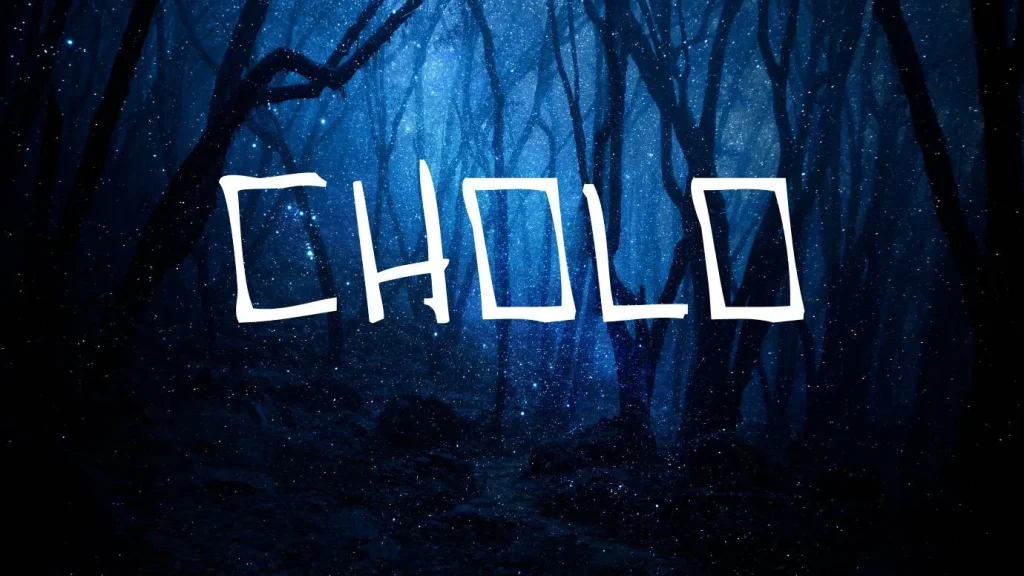
Cholo Font is a fancy style that has very unique glyphs. There are over a hundred stylized alternatives, allowing for unlimited customization and titling possibilities. A classic and stable design, it is well suited to editorial, books, ads, and branding. OTF and TTF versions are available for different design programs, such as Adobe Photoshop. Every designer appreciates its value.
In addition to web development, game development, logo design, and infographics, you can use them for many other purposes. Logos and headlines are best suited for this font. There are several ways in which you can utilize its advanced features for official purposes.
Many designers use this typeface since it is supported by a variety of languages. Utilizing this typeface will enhance the appearance of your designs. Use this typeface to create attractive headlines and titles. Use this attractive typeface for menus, assignments, quotes, and presentations.
This typeface is best compared to the High Destiny typeface. For thumbnail designs, theme designs, and other design projects, this stunning typeface is often selected by designers.
What is Cholo font style?
Cholo is the unique text style for all your fun designs, textual style was planned by Richie Mx. It is the fancy style.
Why is Cholo so popular?
Use this typeface to create attractive headlines and titles, this attractive typeface can be used to create menus, assignments, quotes, and presentations.
Is Cholo good for a resume?
Many professionals say that is now an outdated font, but still, it is an excellent choice in terms of readability.